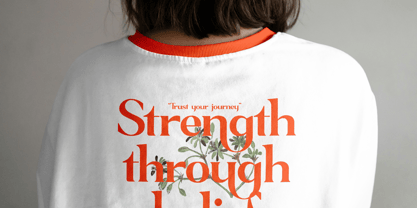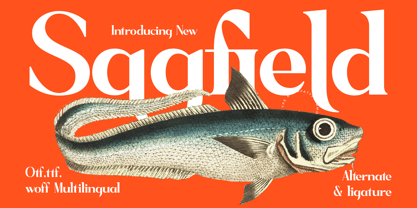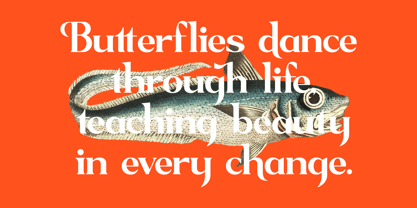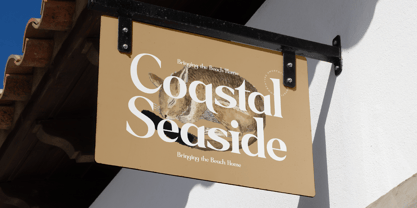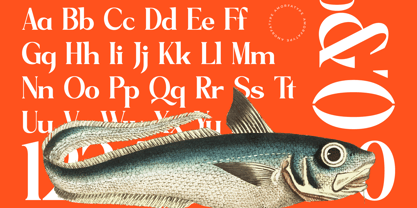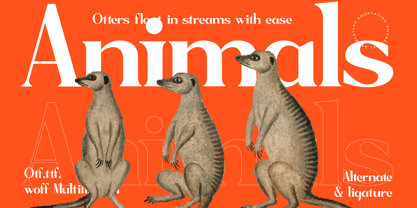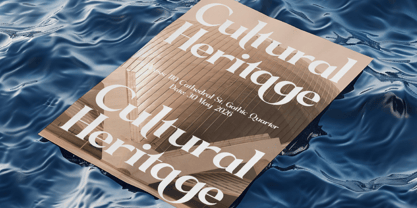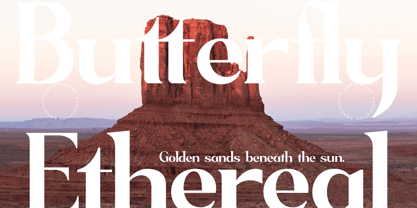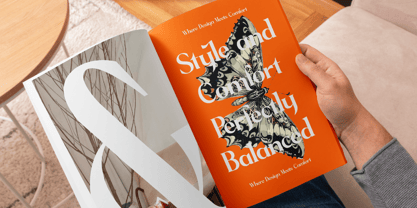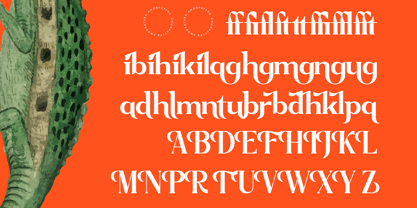
Sagfield
by Amorfa Type
The Sagfield Font Family was designed by Shiddiq Roihan and published by Amorfa Type. Sagfield contains 2 styles and family package options. More about this family
Sagfield is a striking modern serif font that seamlessly blends timeless elegance with modern innovation. With sharp serifs and meticulously crafted curves, this font radiates sophistication while ensuring excellent readability. Its balanced contrast in strokes and refined letterforms create a visually harmonious and distinctive typeface, ideal for a variety of creative applications.
Sagfield’s versatility makes it perfect for luxury branding, editorial design, packaging, and digital media. Whether used for bold headlines or refined body text, Sagfield adds a touch of elegance and professionalism to every project. Every detail, from ligatures to alternates, has been thoughtfully designed to provide a sleek and contemporary typographic experience.